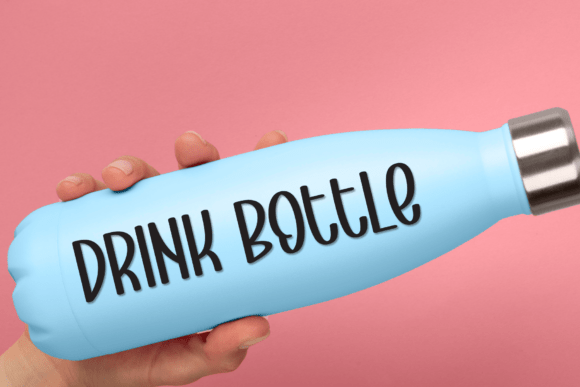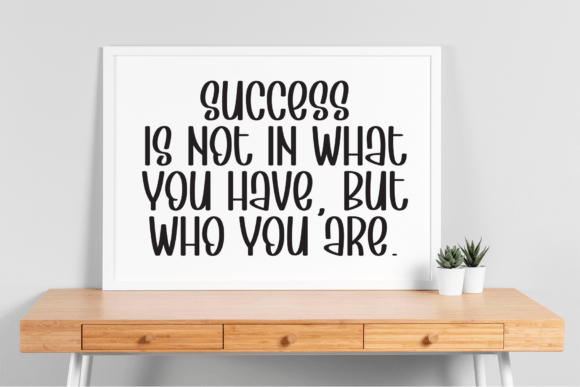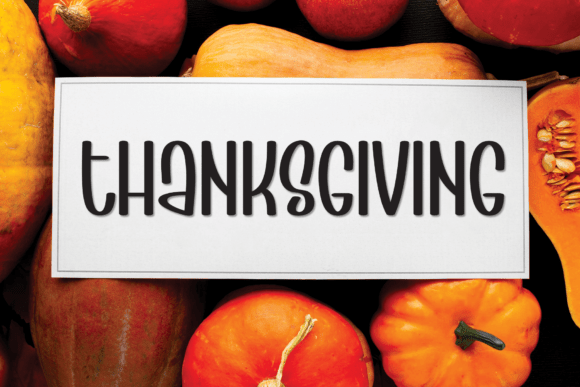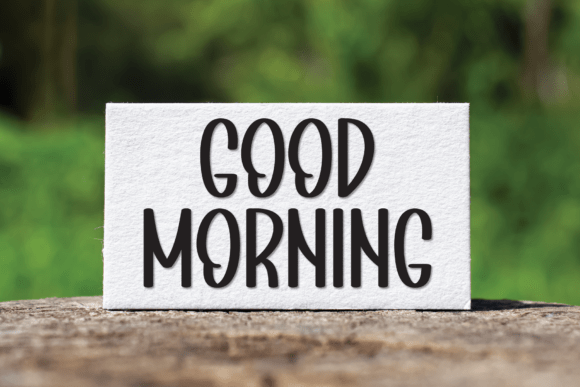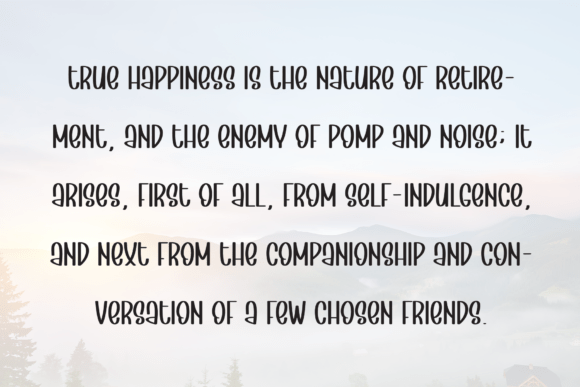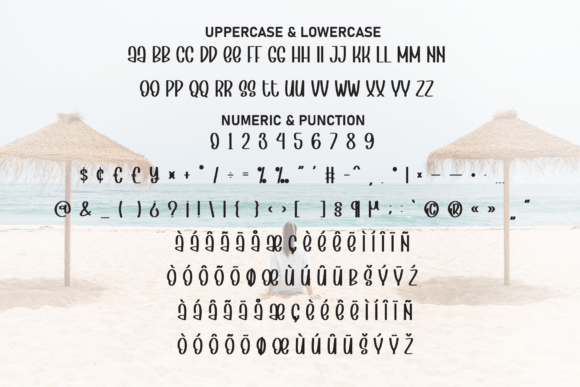
Introducing Beach Minimalist Font: The Perfect Blend of Simplicity and Warmth
Are you tired of using fonts that are too ornate or overpowering? Look no further than the Beach Minimalist Font, a casual and neat display font that combines simplicity with a friendly, approachable vibe. This beautiful font is perfect for designers and crafters who want to add a touch of modern elegance to their projects.
Clean Lines, Balanced Letterforms, and Subtle Rounded Edges
Beach Minimalist Font features clean lines, balanced letterforms, and subtle rounded edges that capture the essence of modern handwritten typography with a polished finish. The font’s crisp structure and versatile style make it ideal for a wide range of design applications, from branding and headlines to packaging and digital content.
One of the standout features of Beach Minimalist Font is its ability to deliver clarity and charm in equal measure. The font’s clean lines and balanced letterforms ensure that your text is easy to read, while its subtle rounded edges add a touch of warmth and personality to your design.
Beach Minimalist Font is perfect for designers and crafters who want to add a warm and inviting touch to their projects. Whether you’re working on a branding project, creating a headline for a website, or designing packaging for a product, this font is sure to impress.
The font’s versatility makes it suitable for a wide range of design applications, including:
- Branding: Use Beach Minimalist Font to create a strong and recognizable brand identity that reflects your values and personality.
- Headlines: Add a touch of elegance and sophistication to your headlines with this beautiful font.
- Packaging: Use Beach Minimalist Font to create eye-catching packaging that stands out on store shelves.
- Digital Content: Add a warm and inviting touch to your digital content, including social media posts, blog articles, and website pages.
Why Choose Beach Minimalist Font?
There are many reasons why Beach Minimalist Font is a great choice for designers and crafters. Here are just a few:
- Unique and Versatile: Beach Minimalist Font is a unique and versatile font that can be used in a wide range of design applications.
- Easy to Read: The font’s clean lines and balanced letterforms make it easy to read, even at small sizes.
- Warm and Inviting: Beach Minimalist Font adds a warm and inviting touch to any design, making it perfect for projects that require a personal touch.
- High-Quality: This font is designed to high standards, ensuring that it looks great in any design application.
Tips for Using Beach Minimalist Font
Here are a few tips for using Beach Minimalist Font in your designs:
- Use it as a Display Font: Beach Minimalist Font is perfect for use as a display font, where it can be used to create eye-catching headlines and titles.
- Pair it with Other Fonts: Experiment with pairing Beach Minimalist Font with other fonts to create a unique and interesting design.
- Use it in Digital Applications: Beach Minimalist Font is perfect for use in digital applications, such as social media posts and website pages.
Beach Minimalist Font is a beautiful and versatile font that is perfect for designers and crafters who want to add a touch of modern elegance to their projects. With its clean lines, balanced letterforms, and subtle rounded edges, this font captures the essence of modern handwritten typography with a polished finish. Whether you’re working on a branding project, creating a headline for a website, or designing packaging for a product, Beach Minimalist Font is sure to impress.